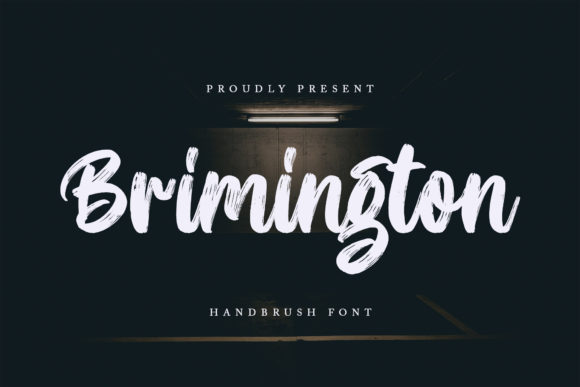
The Brimington Font: A Flowing Script for Creative Projects
I still remember the frustration of working on a logo design project, scrolling through countless fonts, but none seemed quite right. That was until I stumbled upon the Brimington Font. Its flowing, paint-brushed script immediately caught my eye, and I knew I had found the perfect fit. In this article, I’ll share my experience with Brimington, its features, and how to make the most of this beautiful font in your creative projects.
An Honest Review of Brimington Font
- ✨ Elegant, flowing script that adds a touch of sophistication to any design
- ✅ Perfect for a variety of projects, including logos, quotes, badges, packaging, and more
- 💫 Beautifully crafted to mimic the look of paint-brushed letters
- 🎨 Highly versatile and can be used for both digital and print projects
While Brimington Font is an excellent choice, there are a few things to keep in mind:
- ⚠️ Some letters may require manual kerning for optimal spacing
- 🤔 Limited availability of certain special characters
The Story Behind Brimington Font
Brimington Font was designed with the intention of creating a beautiful, elegant script that would add a touch of sophistication to any design. Inspired by traditional calligraphy and modern digital design, Brimington is the result of careful craftsmanship and attention to detail.
Q: Is Brimington Font suitable for body text?
A: While Brimington is a beautiful font, it’s best suited for headlines, titles, and short paragraphs. Its elegant, flowing script can be difficult to read in large blocks of text.
Q: Is Brimington Font available in different weights or styles?
A: Currently, Brimington Font is available in a single weight. However, some design software allows you to adjust the font weight or style through interpolation or other techniques.